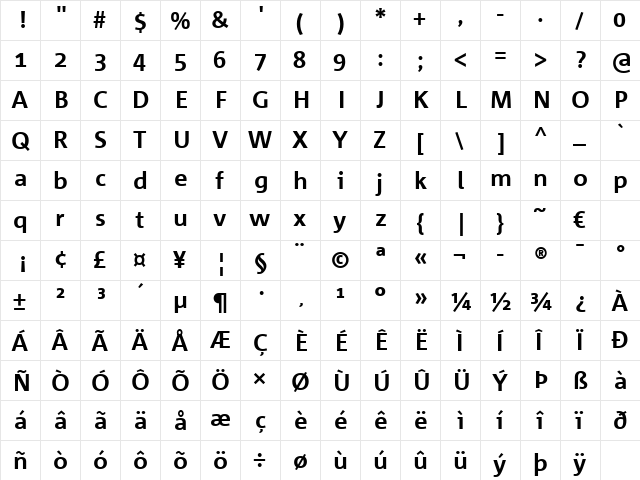
CorpidOffice Bold
| Designer | Luc[as] de Groot, FontFabrik |
Design Context for CorpidOffice Typeface
CorpidOffice offers clean, dependable letterforms without strong stylistic allegiance, making it a practical choice for designers who need flexibility. Its bold stroke weight gives it real presence on the page.
Pro Tip: Use CorpidOffice in both headline and body roles to test its range before committing to a single application.